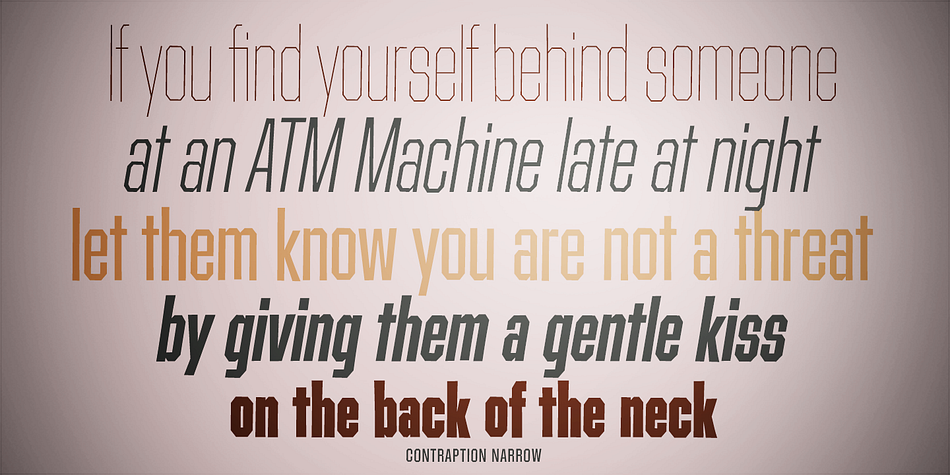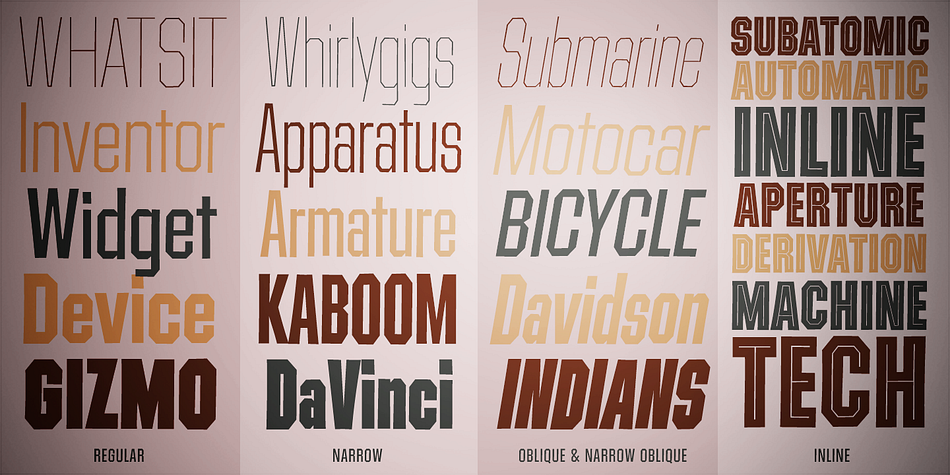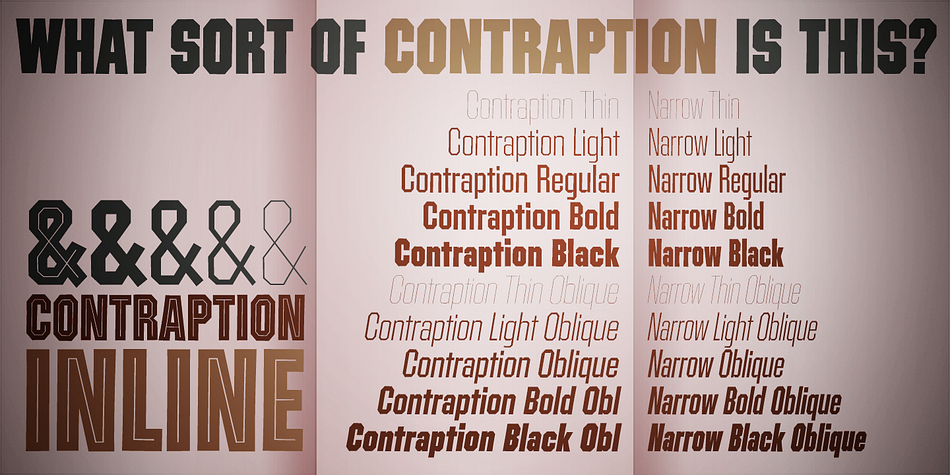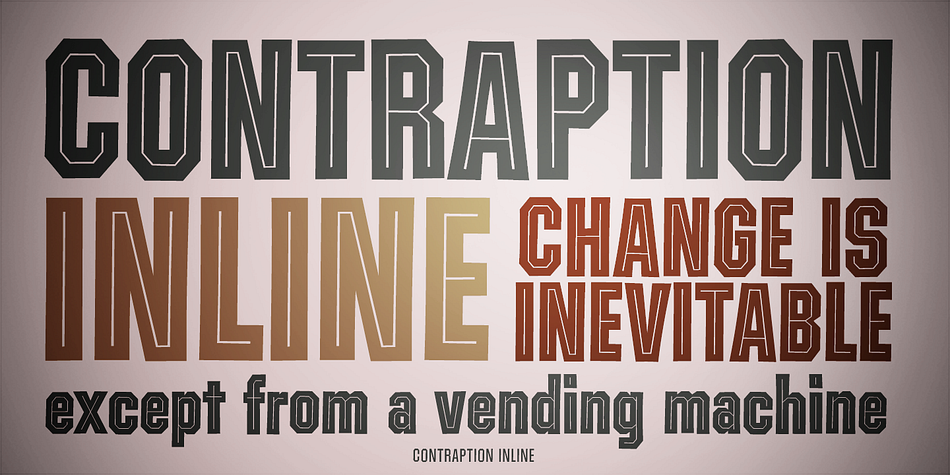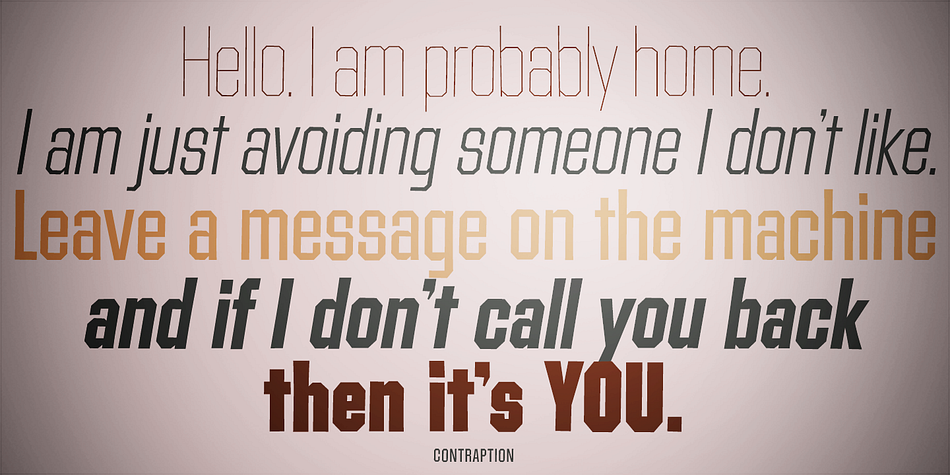
Designed by Phil Bracco, Contraption PB is a sans serif and display sans font family. This typeface has twenty-one styles and was published by Pink Broccoli.
Slightly off-kilter to give this rigid geometric a little personality, Contraption started as a digitization of a film typeface called Intrigue by Lettergraphics. From there, this mechanical typeface was expanded into a giant family of useful widths, weights, and obliques: from spindly thin and light weights, to chunky bold and blacks.
An additional Inline style has been developed to further enhance the family dynamic.